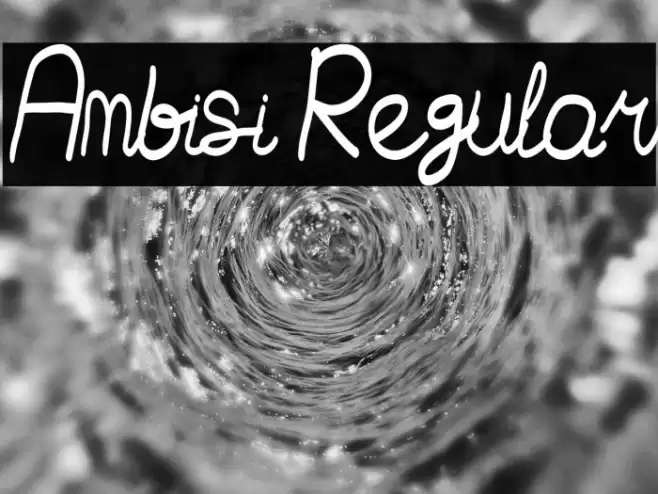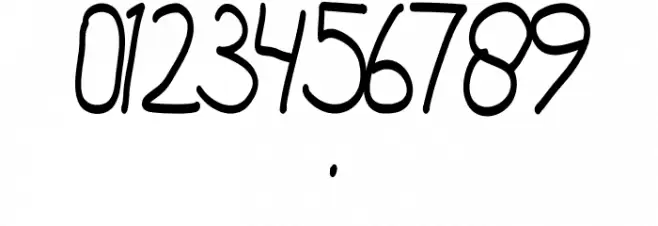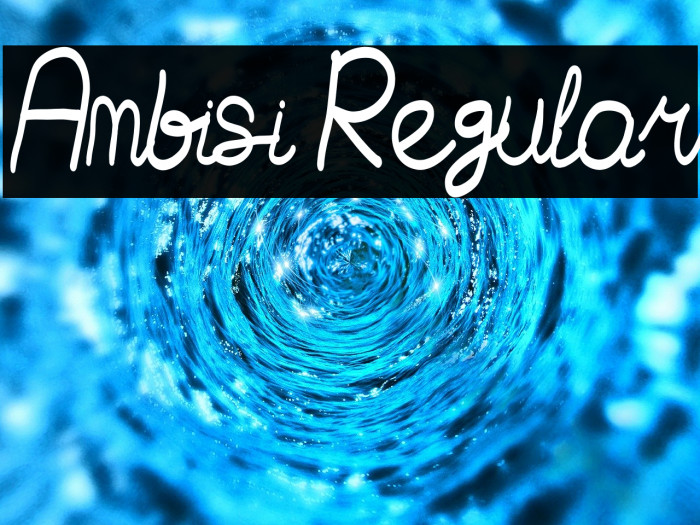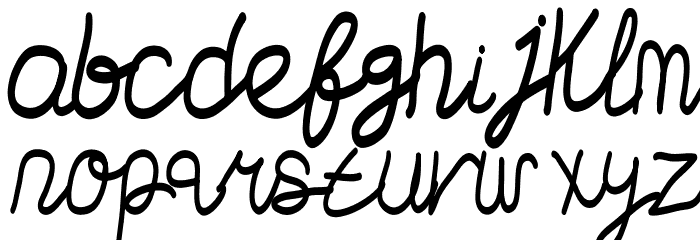
Ambisi Regular Font
Ambisi Regular Description
This font features a handwritten style with a casual and flowing appearance. The characters are slightly slanted, giving it an informal and approachable feel. The uppercase letters are tall and narrow, while the lowercase letters maintain a consistent height, creating a harmonious balance. The numbers are rounded and match the overall style, making them easy to read. The strokes are consistent in thickness, providing a uniform look across all characters. This font is versatile and can be used in various design projects that require a personal touch.
A casual handwritten font with a flowing and approachable style from Uncategorized fonts.
- Overall Style: Casual